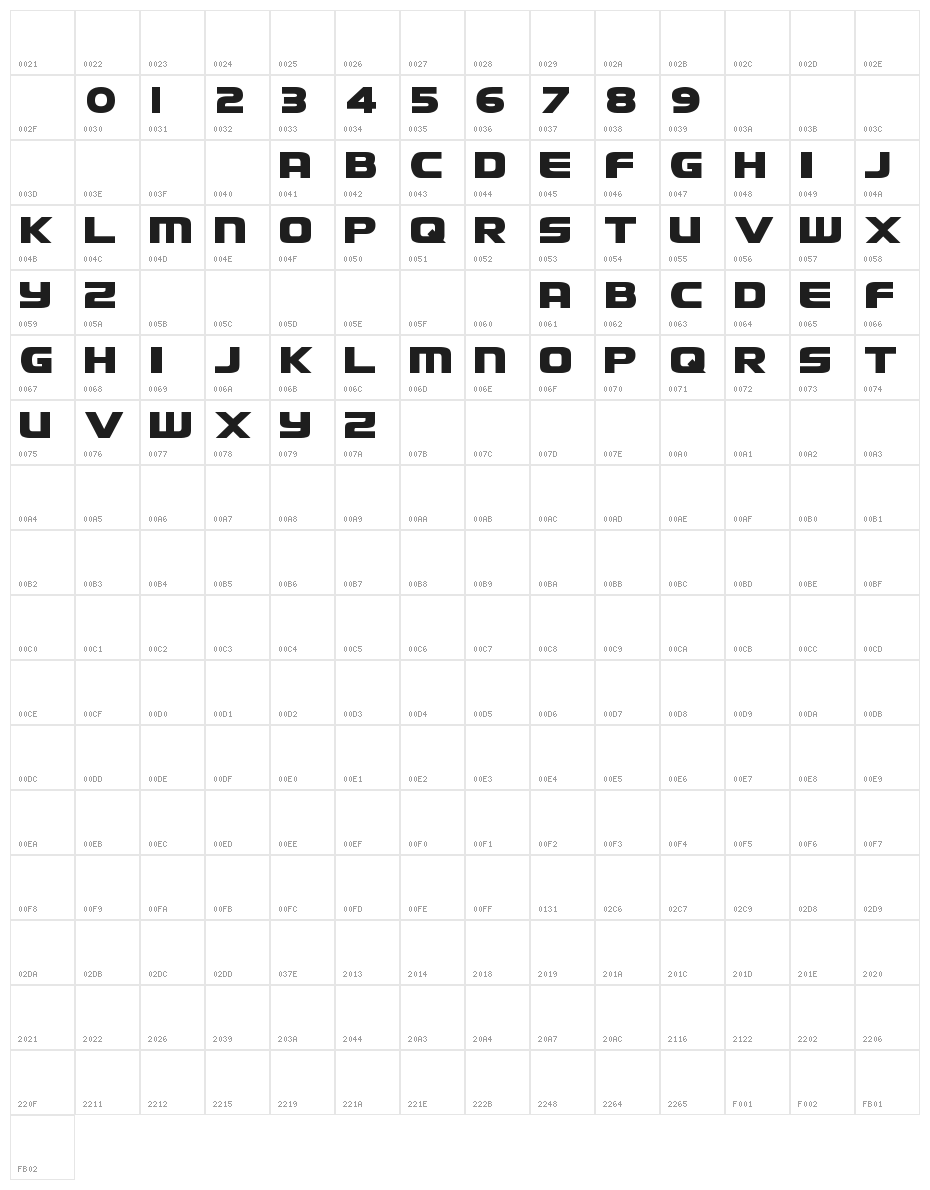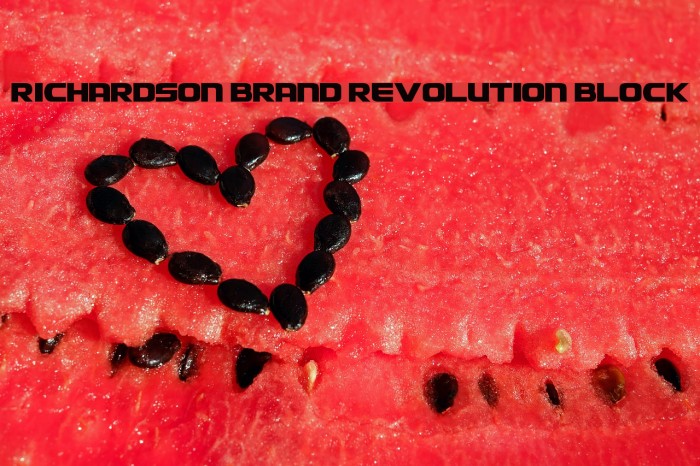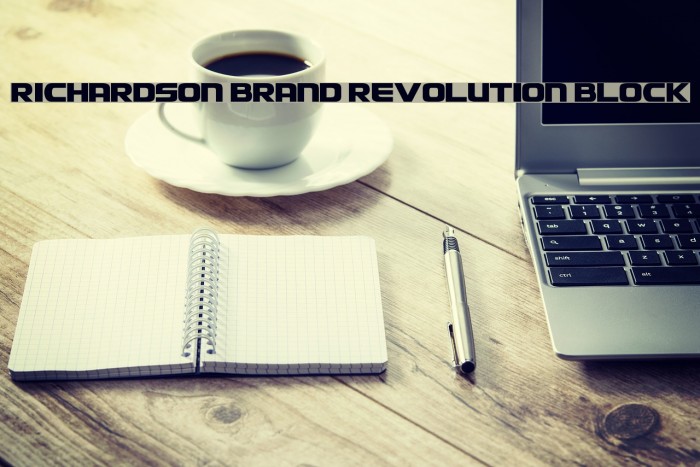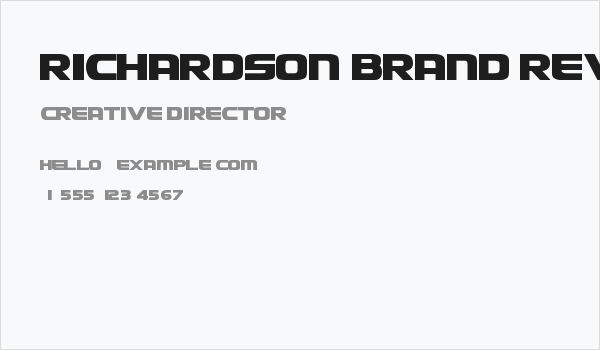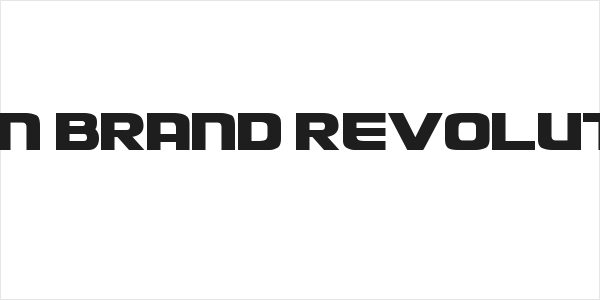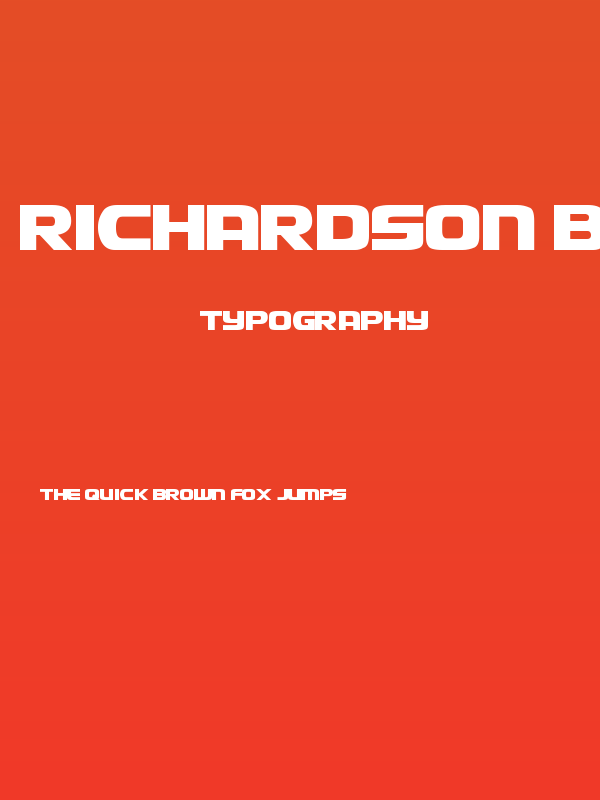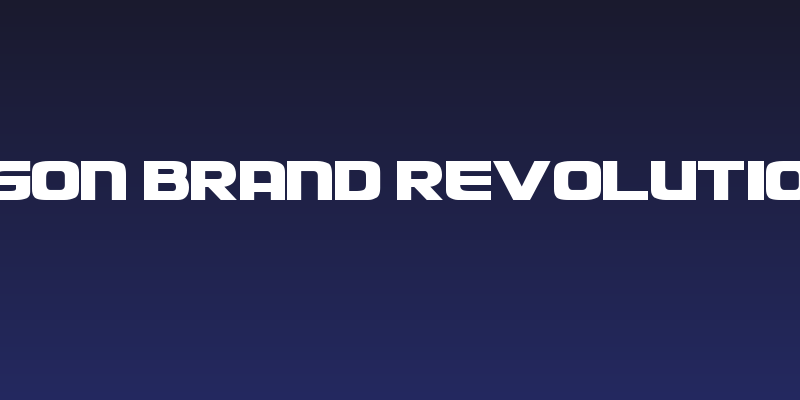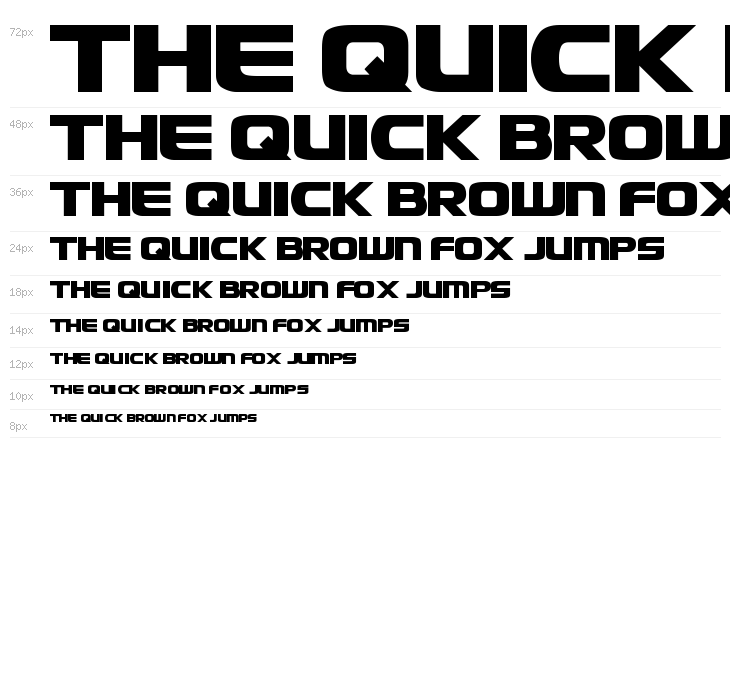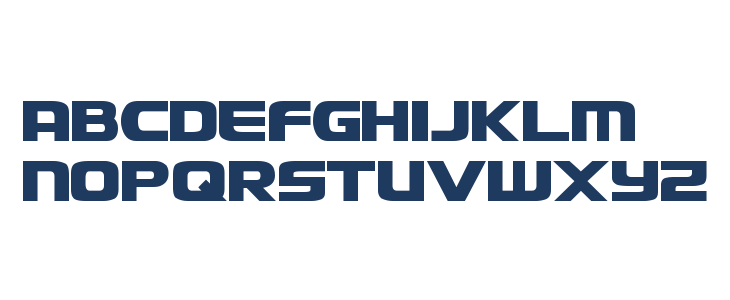
Richardson Brand Revolution Block Font
Richardson Brand Revolution Block Description
This font features a bold, geometric style with strong, angular lines and a modern aesthetic. The characters are uniformly thick, providing a sense of stability and strength. The uppercase letters are particularly striking, with a block-like appearance that commands attention. The numbers follow the same bold and structured design, ensuring consistency across all characters. This font is ideal for projects that require a contemporary and impactful look, such as branding, sports team logos, or headlines. Its clean lines and solid presence make it versatile for various design applications.
Proposed ProjectsBranding, sports team logos, headlines, posters, and advertising materials.